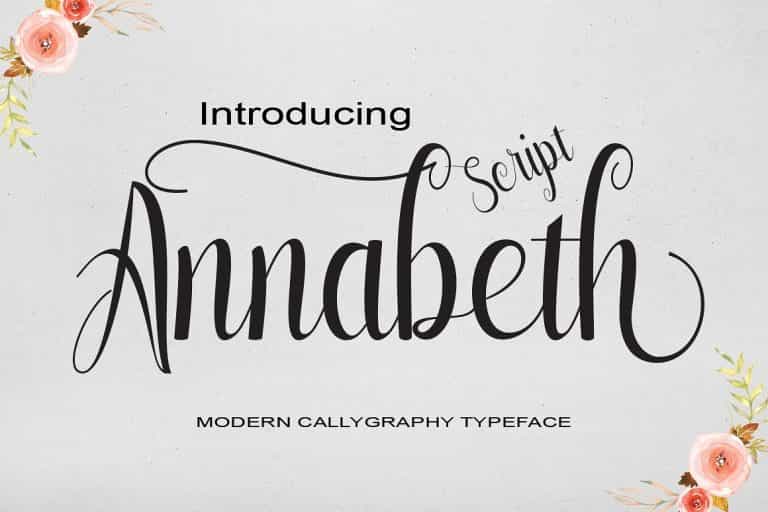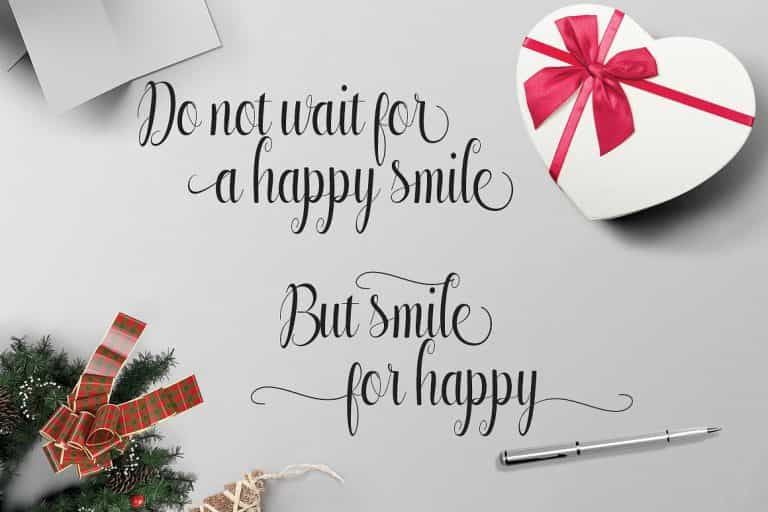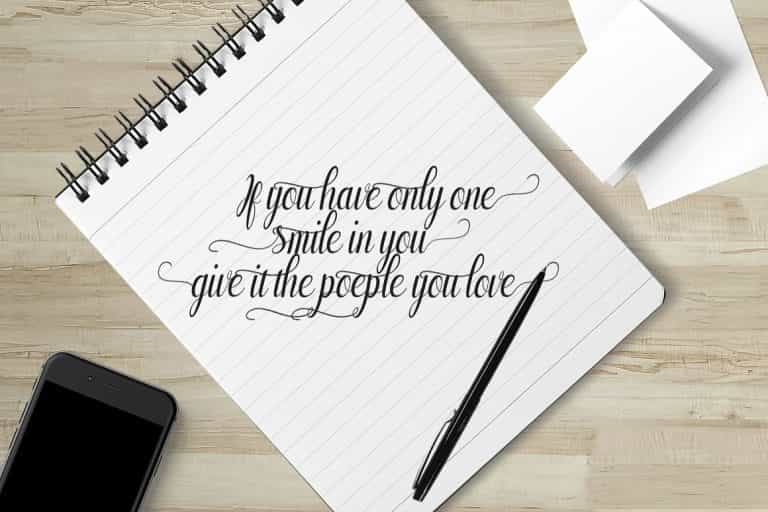
The Annabeth is the new modern calligraphy font that has been introduced. Annabeth was created and then shared by StudioRz. This font was created by handwriting and it is characterized by a modern look, unique calligraphy forms and the writing style that looks very natural. Annabeth’s calligraphy is very peculiar and it goes well with the modern design work.